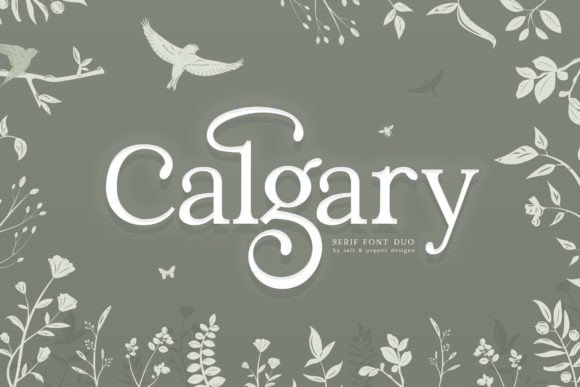
Calgary Font: Elevate Your Designs with this Spectacular Duo
The world of typography is vast and diverse, with numerous fonts to choose from, each with its unique characteristics and uses. Among these, the Calgary font stands out as a spectacular duo font, comprising a serif and script font that can elevate your designs to the highest levels. In this article, we’ll explore the features, benefits, and applications of the Calgary font, and how it can breathe life into your creative ideas.
What is Calgary Font?
Calgary is a carefully crafted font duo that includes a serif and a script font. This combination allows designers to create stunning visual hierarchies, add contrast, and convey their message effectively. The serif font provides a solid foundation, exuding professionalism and tradition, while the script font adds a touch of elegance and sophistication.
The Calgary font is designed to be incredibly versatile, making it suitable for a wide range of design applications, from branding and advertising to packaging and digital media. Its unique features and adaptability make it an excellent choice for designers looking to create visually appealing and cohesive designs.
Design Applications of Calgary Font
The Calgary font duo can be used in various design applications, including:
- Branding: Create a lasting impression with Calgary’s unique font combination, perfect for logos, business cards, and brand guidelines.
- Advertising: Use Calgary to create eye-catching ads, flyers, and brochures that capture your audience’s attention.
- Packaging: Elevate your product packaging with Calgary’s elegant and sophisticated font style.
- Digital Media: Apply Calgary to your website, social media, or mobile app design to create a cohesive and engaging user experience.
The Benefits of Using Calgary Font
The Calgary font offers several benefits that make it an attractive choice for designers:
- Versatility: Calgary’s duo font design allows it to adapt to various design applications and styles.
- Legibility: The serif font provides excellent readability, making it ideal for body text and content-heavy designs.
- Elegance: The script font adds a touch of sophistication and elegance, perfect for headlines, titles, and emphasis.
- Uniqueness: Calgary’s distinctive font combination sets it apart from other fonts, ensuring your designs stand out.
Tips and Tricks for Using Calgary Font
To get the most out of Calgary font, consider the following tips:
- Mix and Match: Combine the serif and script fonts to create visual interest and hierarchy.
- Play with Sizes: Experiment with different font sizes to add emphasis and create contrast.
- Adjust Line Spacing: Optimize line spacing to ensure readability and flow.
- Color Matters: Select colors that complement the font and enhance the overall design.
Calgary Font in Action: Inspiration and Examples
To showcase the potential of Calgary font, let’s take a look at some inspiring examples:
- Magazine Covers: Use Calgary to create stunning magazine covers that grab attention.
- Brand Identity: Develop a cohesive brand identity with Calgary’s unique font combination.
- Web Design: Apply Calgary to web design projects for a sophisticated and modern look.
In conclusion, the Calgary font is a powerful tool for designers, offering a unique combination of serif and script fonts that can elevate designs to new heights. Its versatility, legibility, elegance, and uniqueness make it an excellent choice for various design applications. By incorporating Calgary font into your creative workflow, you’ll be able to create stunning designs that capture your audience’s attention and leave a lasting impression.
Get Ready to Elevate Your Designs with Calgary Font
Add Calgary font to your favorite creative ideas and watch them come alive. With its incredible versatility and stunning design, Calgary font is sure to become a staple in your typography collection.